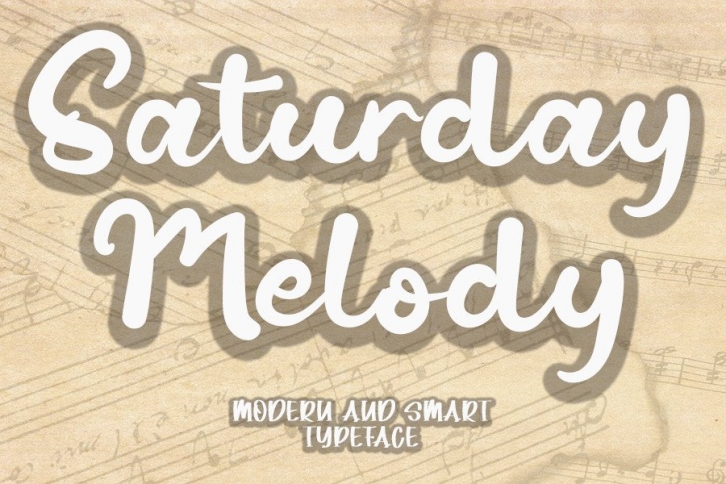
Saturday Melody is a well-balanced, cheery and delicate handwritten font. Whether you’re looking for fonts for Instagram or calligraphy scripts for DIY projects, this font will turn any creative idea into a true piece of art!